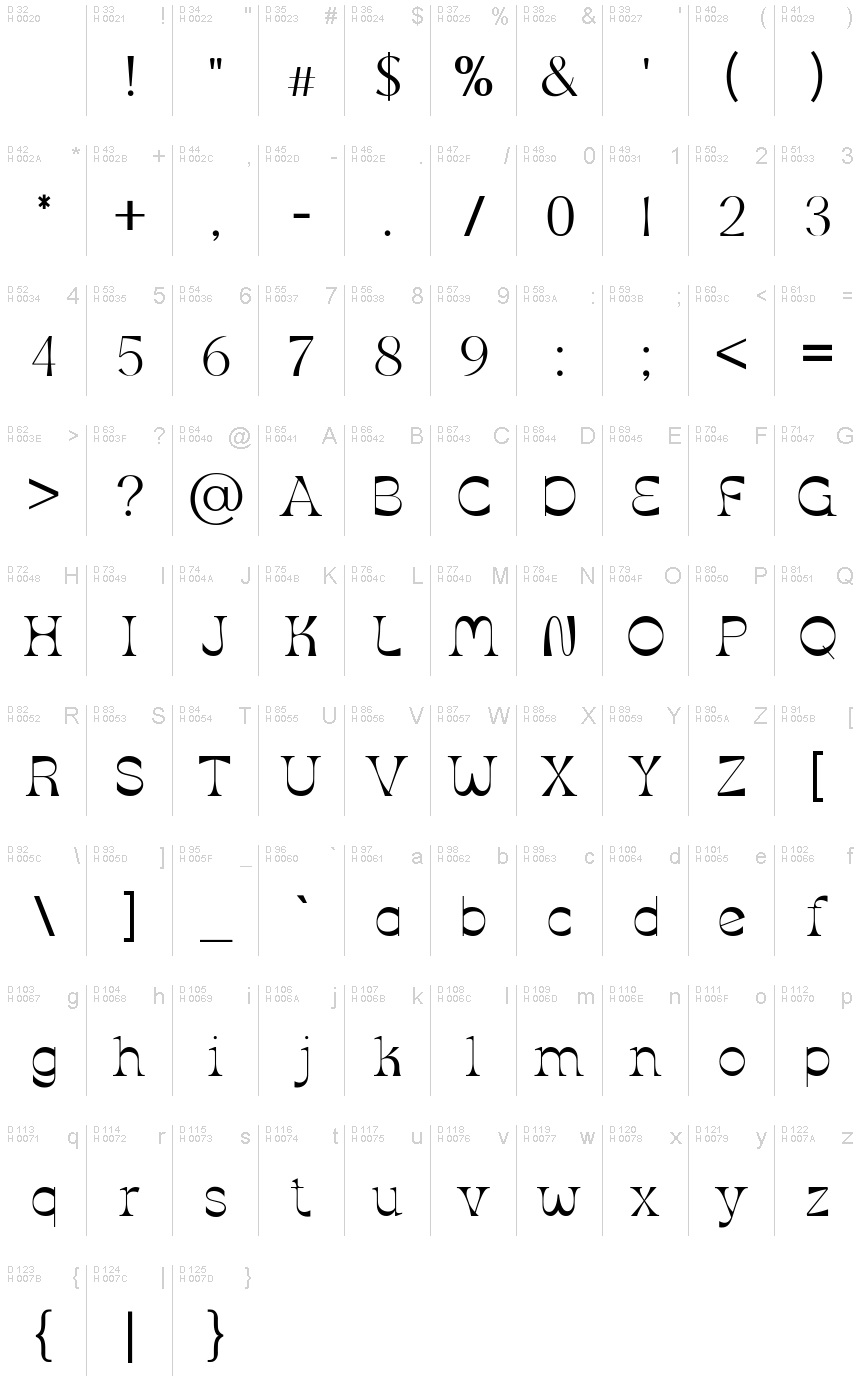
Breadstick, crafted by UI Creative, is a captivating retro display font that seamlessly blends nostalgia with contemporary aesthetics. Its bold strokes and whimsical curves evoke a sense of vintage charm, making it perfect for designs that need to stand out. The exaggerated flair of each character adds a playful yet sophisticated touch, ideal for branding, posters, and any project seeking a distinct and memorable look.
The unique personality of Breadstick makes it versatile for various creative endeavors. Whether used in advertising campaigns or product packaging, its distinctive style ensures your message leaves a lasting impression. With Breadstick, elevate your designs by infusing them with an effortless blend of retro elegance and modern appeal.